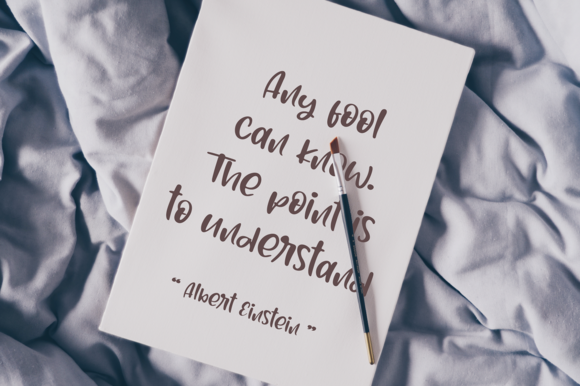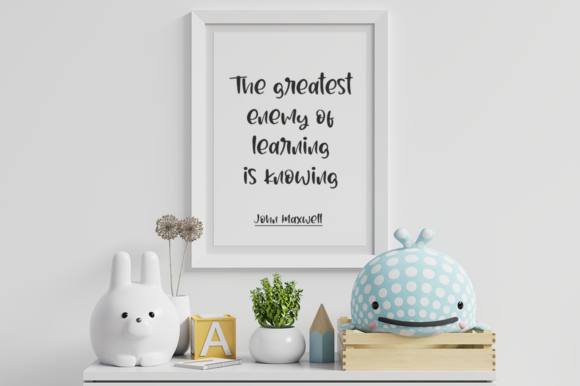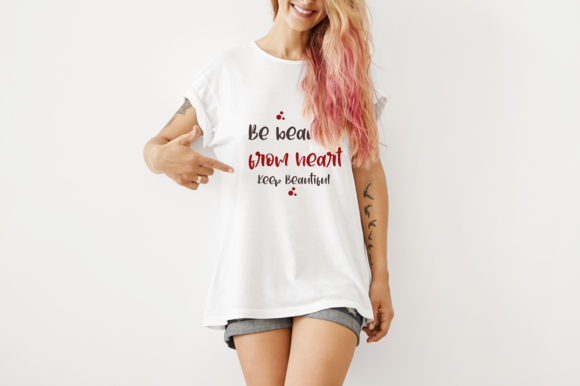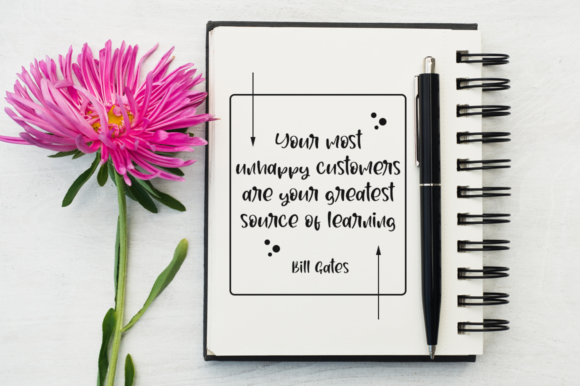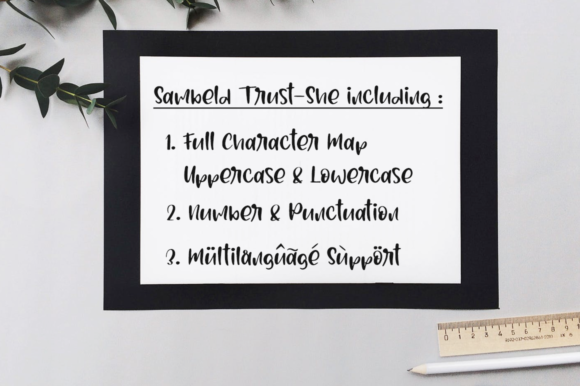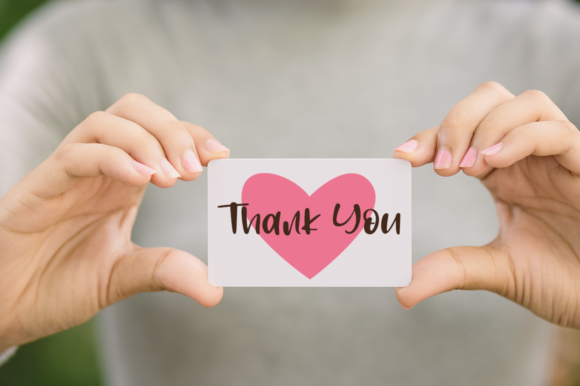
Introduction to Sambeld Trust She Font Font
Fonts play a crucial role in design, and the Sambeld Trust She Font font is a typeface that brings both character and versatility to any project. Whether you’re working on a branding project, a website, or a print design, the Sambeld Trust She Font font offers a unique style that can elevate your work.
Sambeld Trust She is a beautiful and round-lettered handwritten font.
Fall in love with its incredibly distinct and timeless style and use it to create spectacular designs .
Key Features of Sambeld Trust She Font Font
Why Choose Sambeld Trust She Font Font?
The Sambeld Trust She Font font is more than just a typeface – it’s a design tool that helps you communicate your message with style and clarity. Its unique character set and versatile design make it suitable for a wide range of applications, from elegant invitations to bold headlines.
With its carefully crafted letterforms and balanced proportions, the Sambeld Trust She Font font ensures readability and visual appeal across all mediums.
What makes Sambeld Trust She Font font special?
The Sambeld Trust She Font font stands out with its unique design, exceptional readability, and versatility across various design applications.